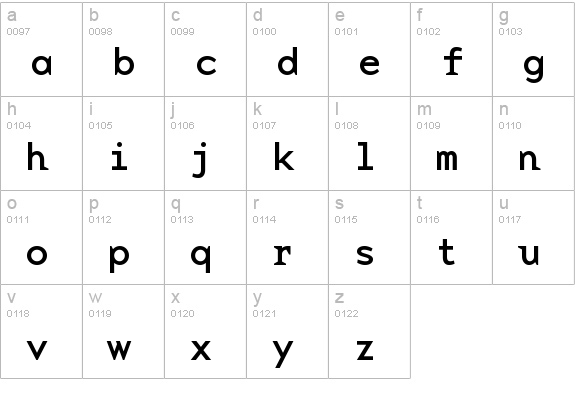
BaseMonoWideReg Font Details
BaseMonoWideReg is a modern and sleek monospaced font designed for a wide range of applications. With its clean lines and balanced proportions, this font is perfect for coding, digital design, and other projects that require a clear and easy-to-read typeface. BaseMonoWideReg is versatile and highly legible, making it a great choice for both on-screen and print use. What sets BaseMonoWideReg apart is its unique combination of elegance and functionality. The font strikes the perfect balance between a classic monospaced design and a contemporary aesthetic, making it suitable for a variety of design styles. Whether you are working on a website, app, or print publication, BaseMonoWideReg will help you achieve a professional and polished look. Best of all, BaseMonoWideReg is available for free download at FontsMarket.com. This means you can start using this high-quality font in your projects right away, without any additional cost. Don't miss out on the opportunity to enhance your designs with BaseMonoWideReg – download it today and experience the difference it can make.